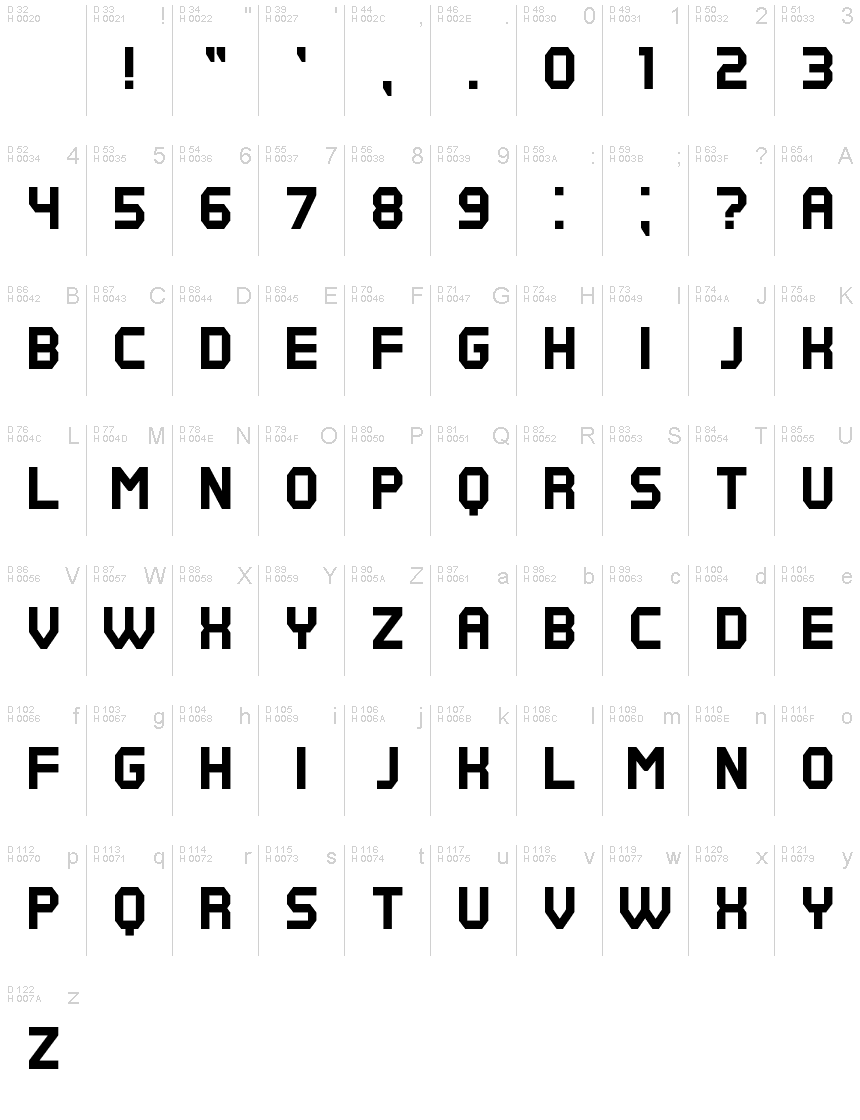
Mishap Regular
Mishap, crafted by Vladimir Nikolic, is a captivating sans-serif font with a semi-bold weight. Its clean lines and modern aesthetic make it perfect for an array of projects.
For bold headlines and eye-catching titles, Mishap adds a touch of sophistication to website banners and posters. Its legibility shines in long-form content such as magazine layouts or e-books, enhancing readability while maintaining a contemporary feel. With its versatility and distinctive charm, Mishap seamlessly adapts to branding materials like logos and packaging design, ensuring your brand stands out from the crowd.